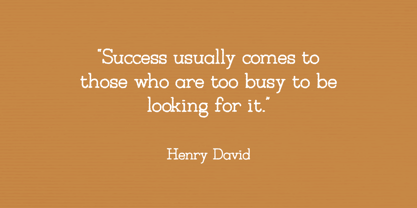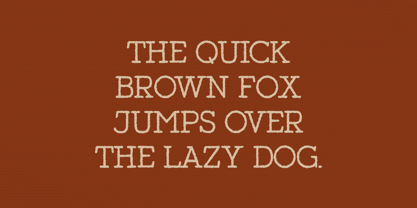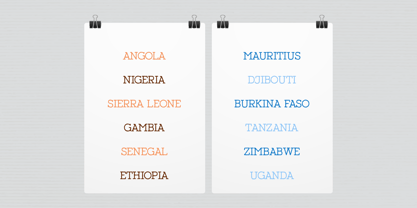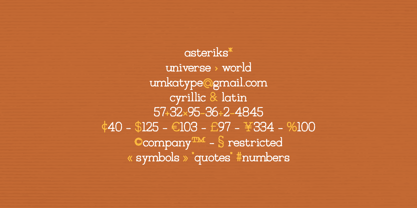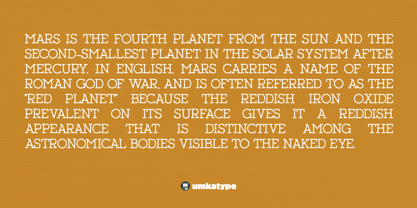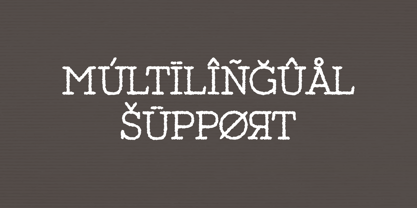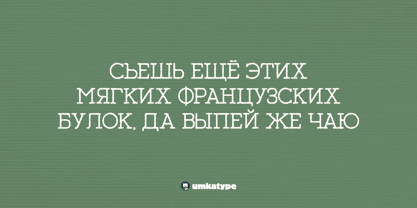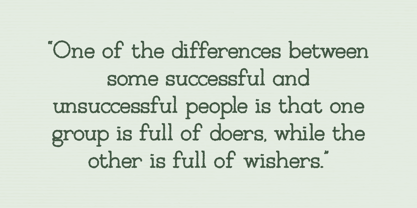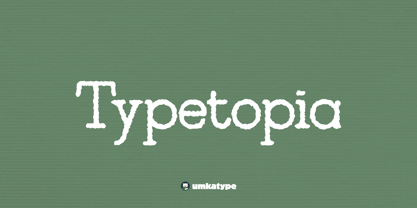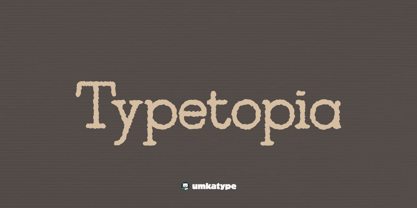
Typetopia
by AlperCakici
The Typetopia Font Family was designed by Alper Çakıcı and published by AlperCakici. Typetopia contains 1 styles. More about this family
Typetopia is a charming typewriter font that takes you back to the nostalgic era of vintage typing machines. Its classic appearance and authentic typewriter feel make it perfect for projects that require a touch of retro elegance. With full support for the Cyrillic alphabet, Typetopia ensures that your text looks authentic and readable in multiple languages.
Whether you're creating a vintage-inspired design, crafting a period piece, or adding a unique twist to modern projects, Typetopia brings a sense of timeless sophistication to your typography.